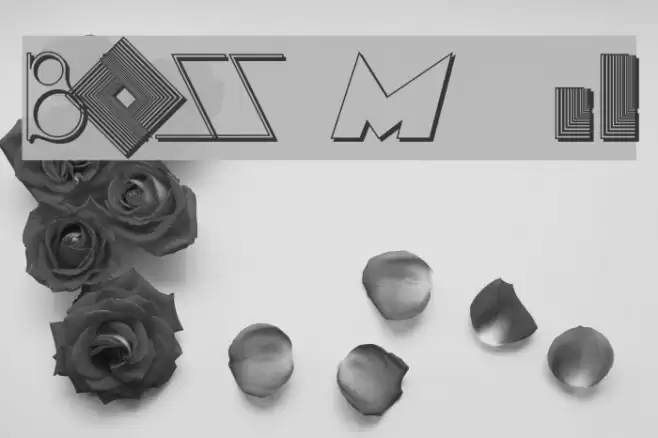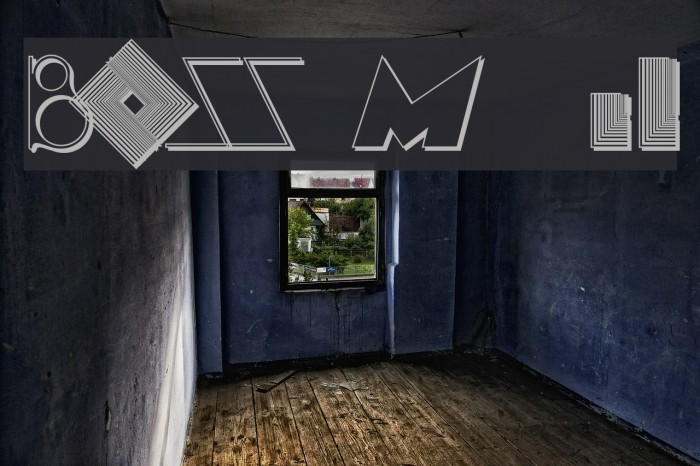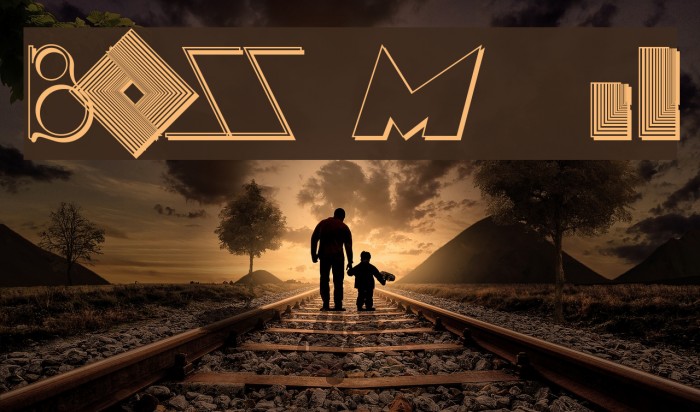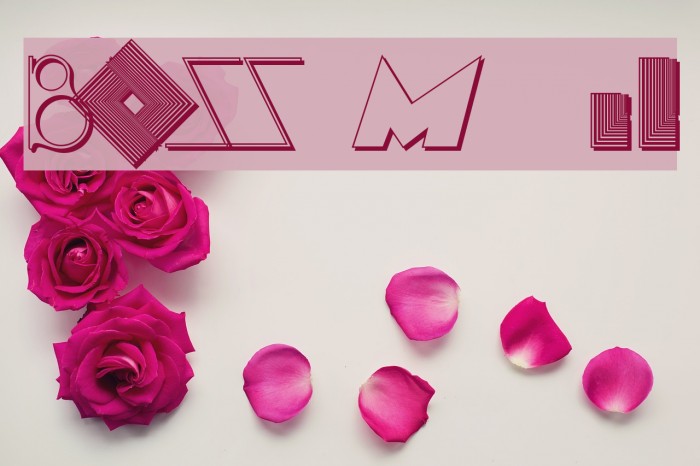
BOSS M D Font
BOSS M D Description
This font features a highly decorative and geometric style, characterized by intricate line patterns and unique shapes within each letterform. The uppercase letters are bold and striking, with a mix of solid and outlined sections that create a dynamic visual effect. The design incorporates various geometric elements such as stripes, angles, and curves, giving it a modern and artistic flair. The font's complexity and distinctiveness make it stand out, ideal for projects that require a strong visual impact.
A decorative, geometric font with intricate line patterns and bold shapes from Decorative fonts.
- Proposed Projects: Ideal for artistic posters, album covers, branding for creative industries, and any design project that seeks to make a bold statement.